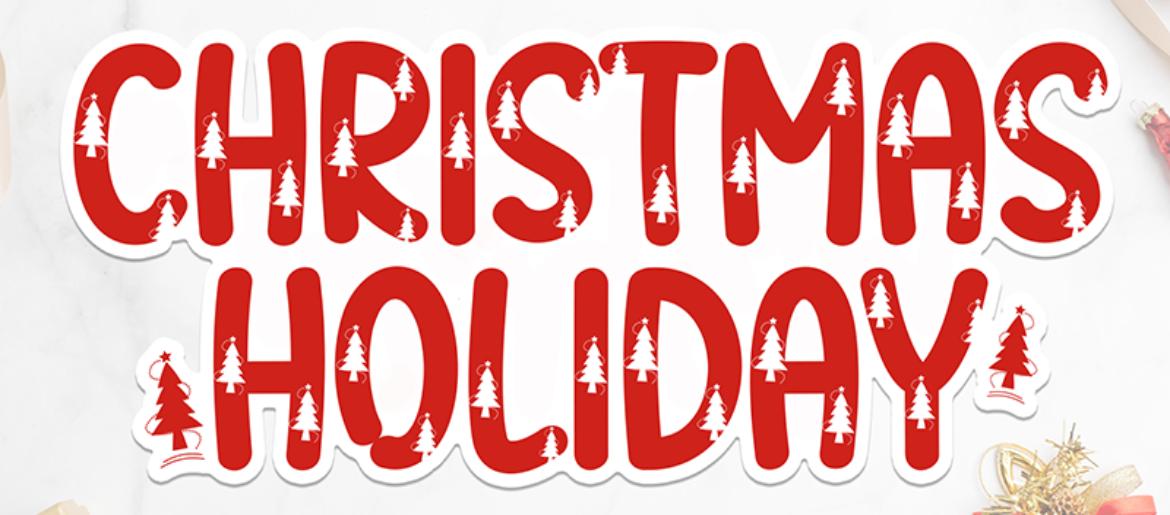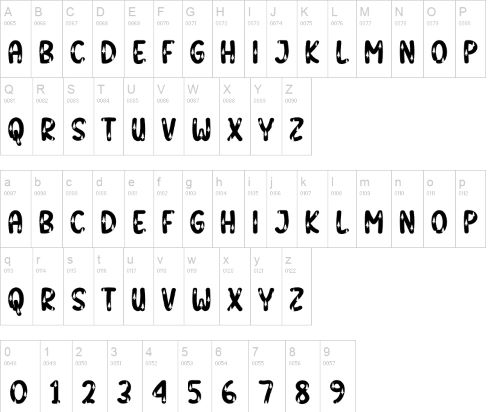
Christmas Holiday
Christmas Holiday font
Christmas Holiday Font is a sweet and friendly handwritten display typeface with a cute, playful personality. Its soft strokes and joyful style make it perfect for wedding invitations, greeting cards, holiday designs, and creative projects that need a fun, charming, and lighthearted touch.
Font Name: Christmas Holiday
Designer: Andi Moz
Style: Christmas